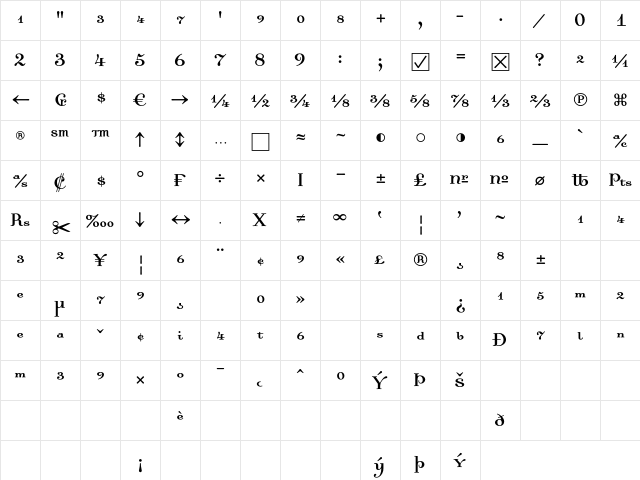
Complete Dalliance Regular glyph index. Displaying only characters natively supported by Dalliance Regular font.
Dalliance is a composed and adaptable typeface that performs quietly and consistently across a wide range of design contexts.